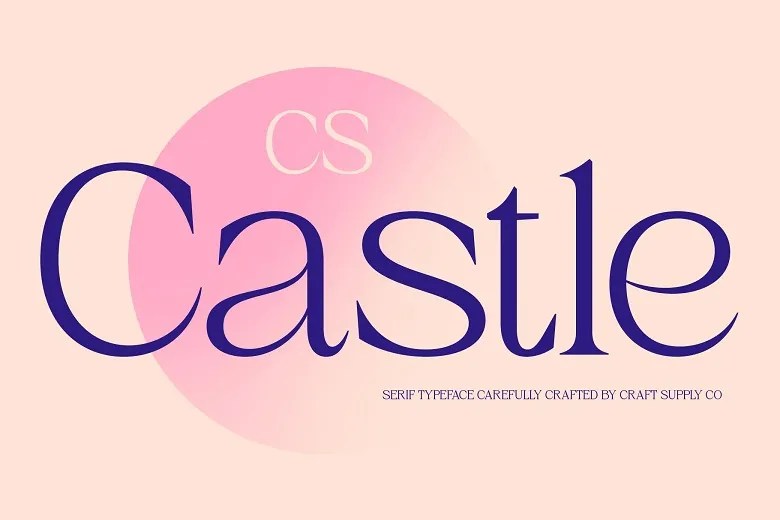
CS Castle Font
CS Castle is a refined serif typeface, characterized by its fine and delicate features. With its elegant, understated serifs and square, well-aligned horizontal lettering, CS Castle exudes a modern and sophisticated appeal. The font’s soft bends and carefully crafted edges further enhance its allure, making it the perfect choice for designs that require a touch of elegance and sophistication.
Key Features of CS Castle:
• Elegant Serifs: Understated and stylish, the serifs of CS Castle add a touch of classic elegance to the modern design.
• Square Horizontal Lettering: The square, well-aligned letters provide a contemporary look, making the font versatile for modern applications.
• Soft Bends and Crafted Edges: These elements contribute to the font’s overall sophistication, adding a subtle charm to any project.
Ideal Uses for CS Castle:
• Fashion Adverts: Perfect for fashion magazines and luxury branding that demand an elegant and modern touch.
• Luxury Product Packaging: Elevate your product’s appeal with the sophisticated look of CS Castle.
• High-End Marketing Materials: Ideal for creating refined marketing materials that exude quality and class.